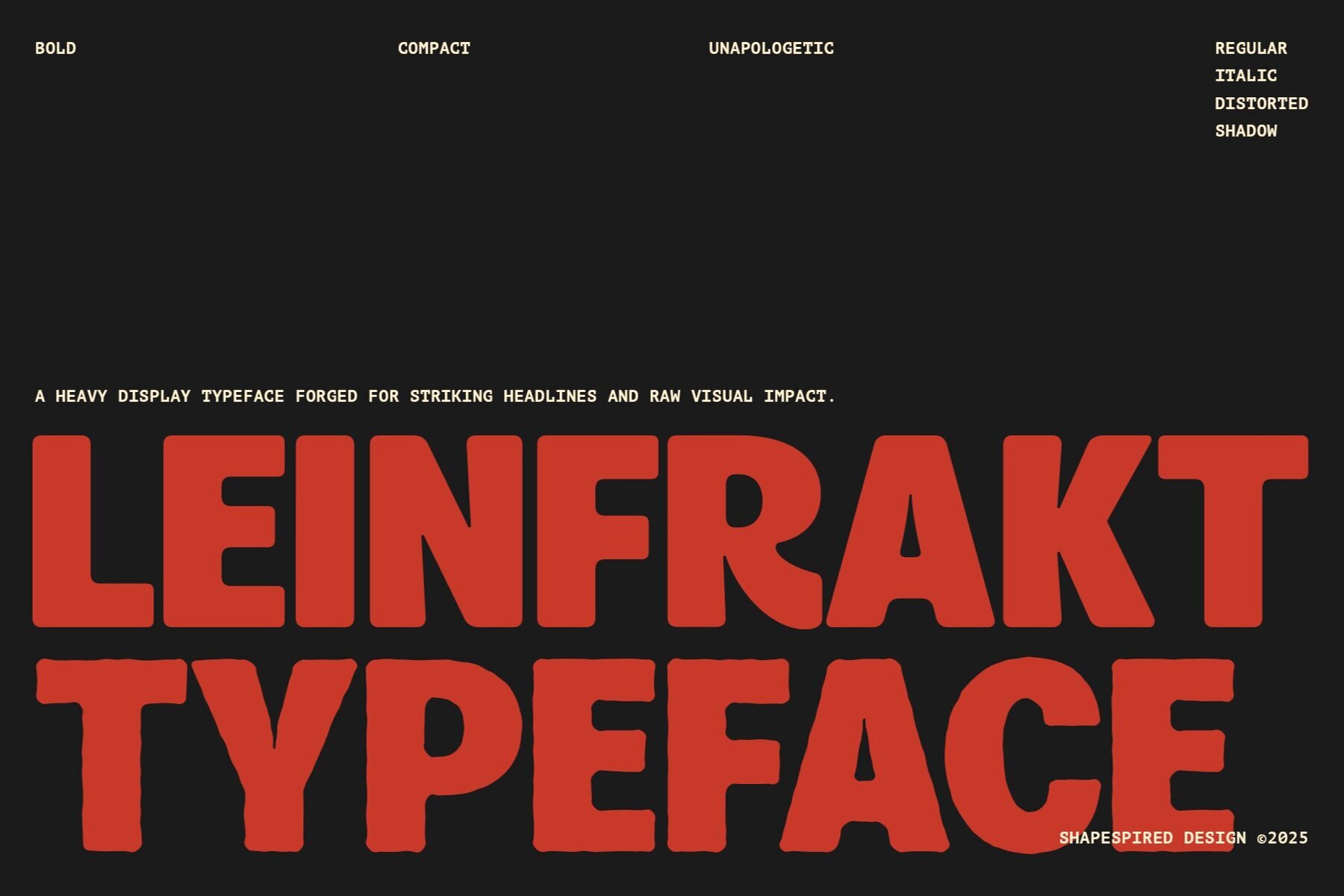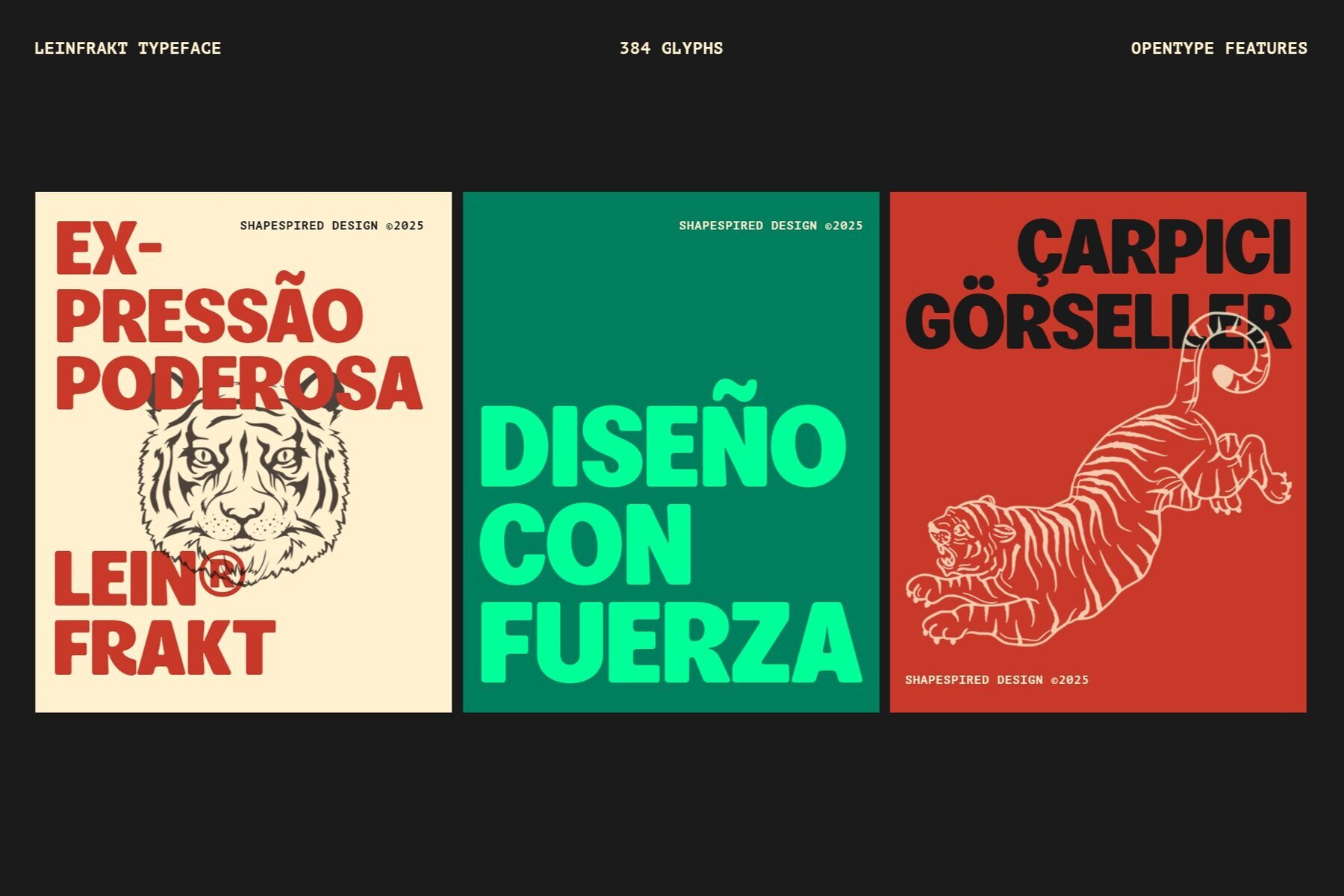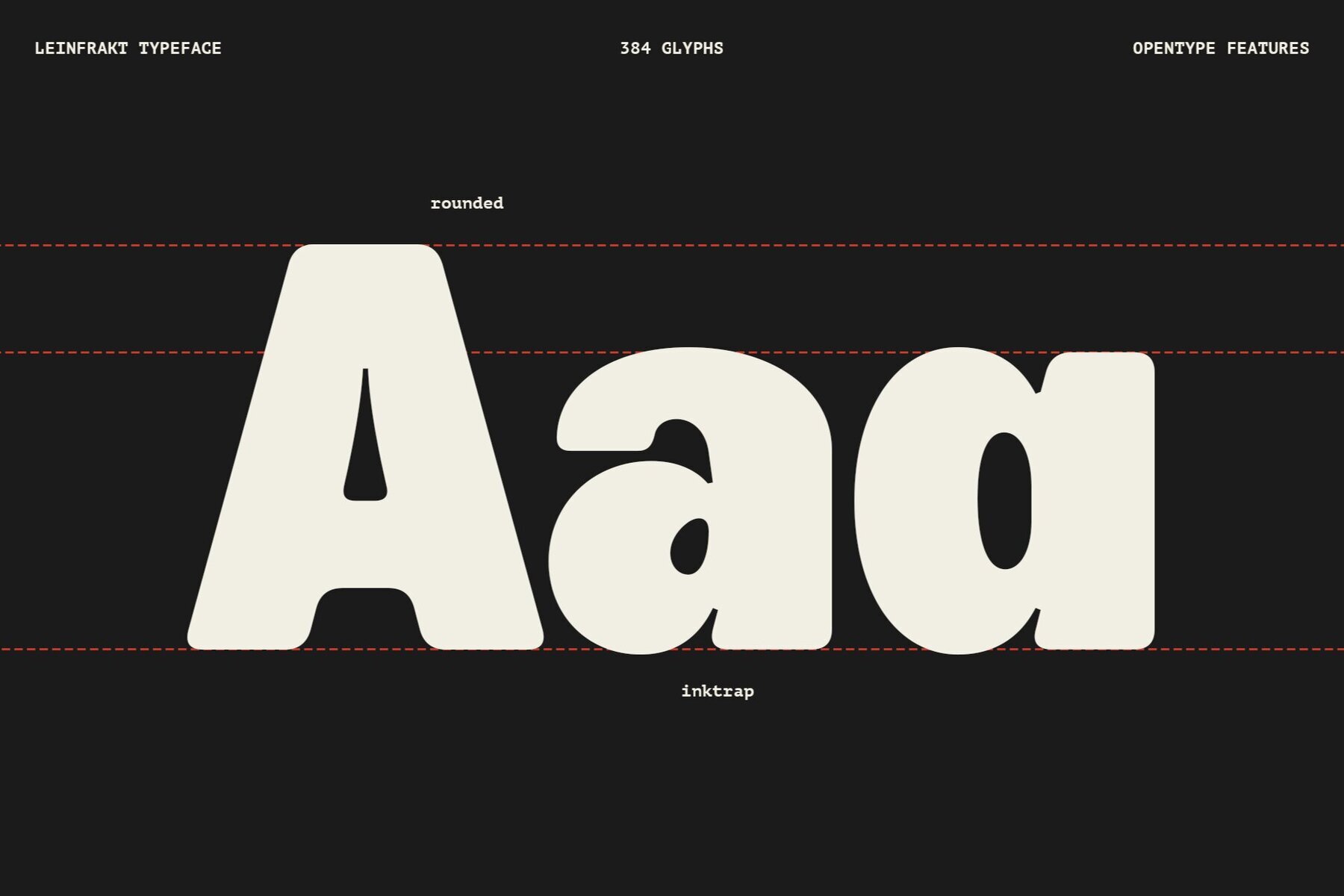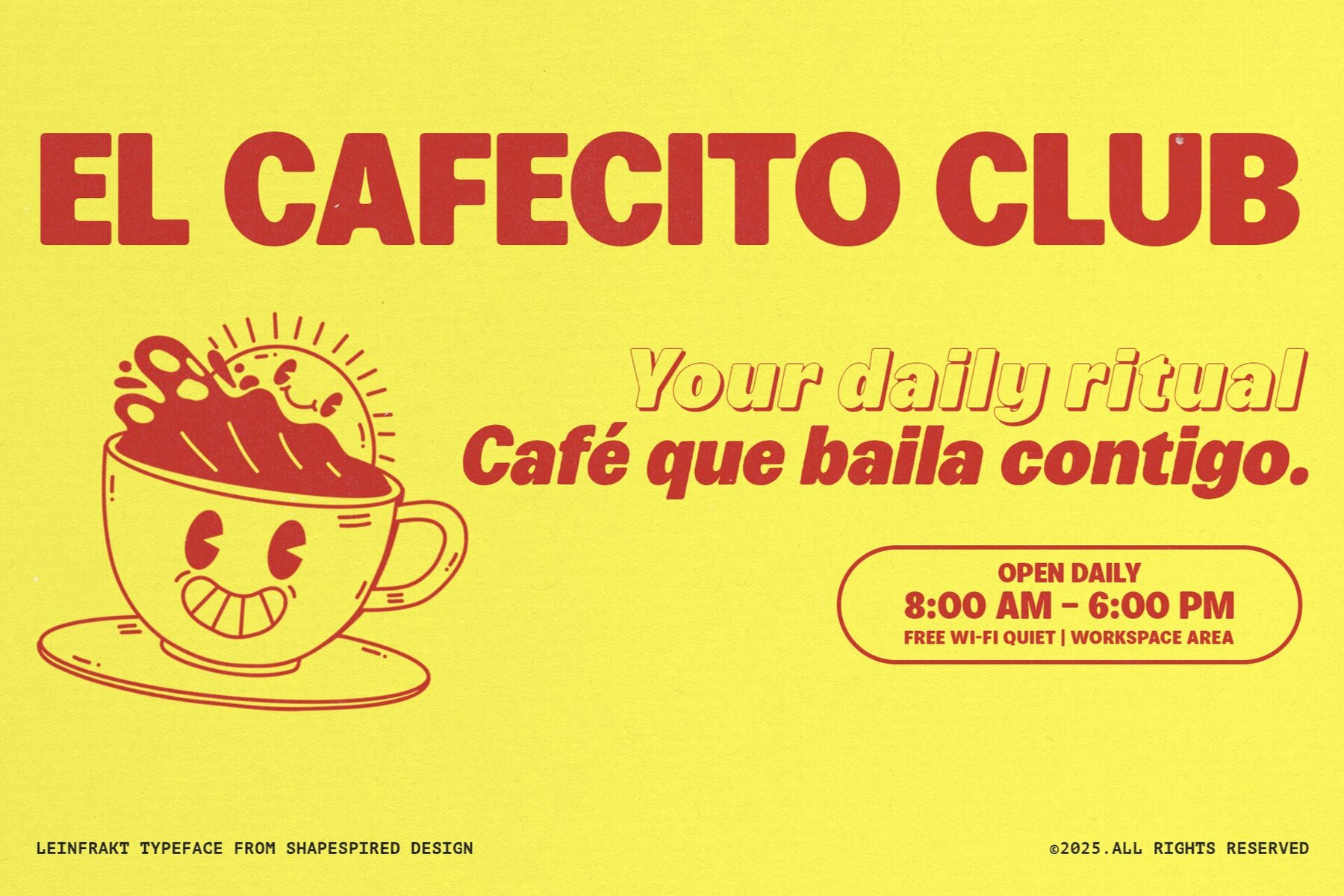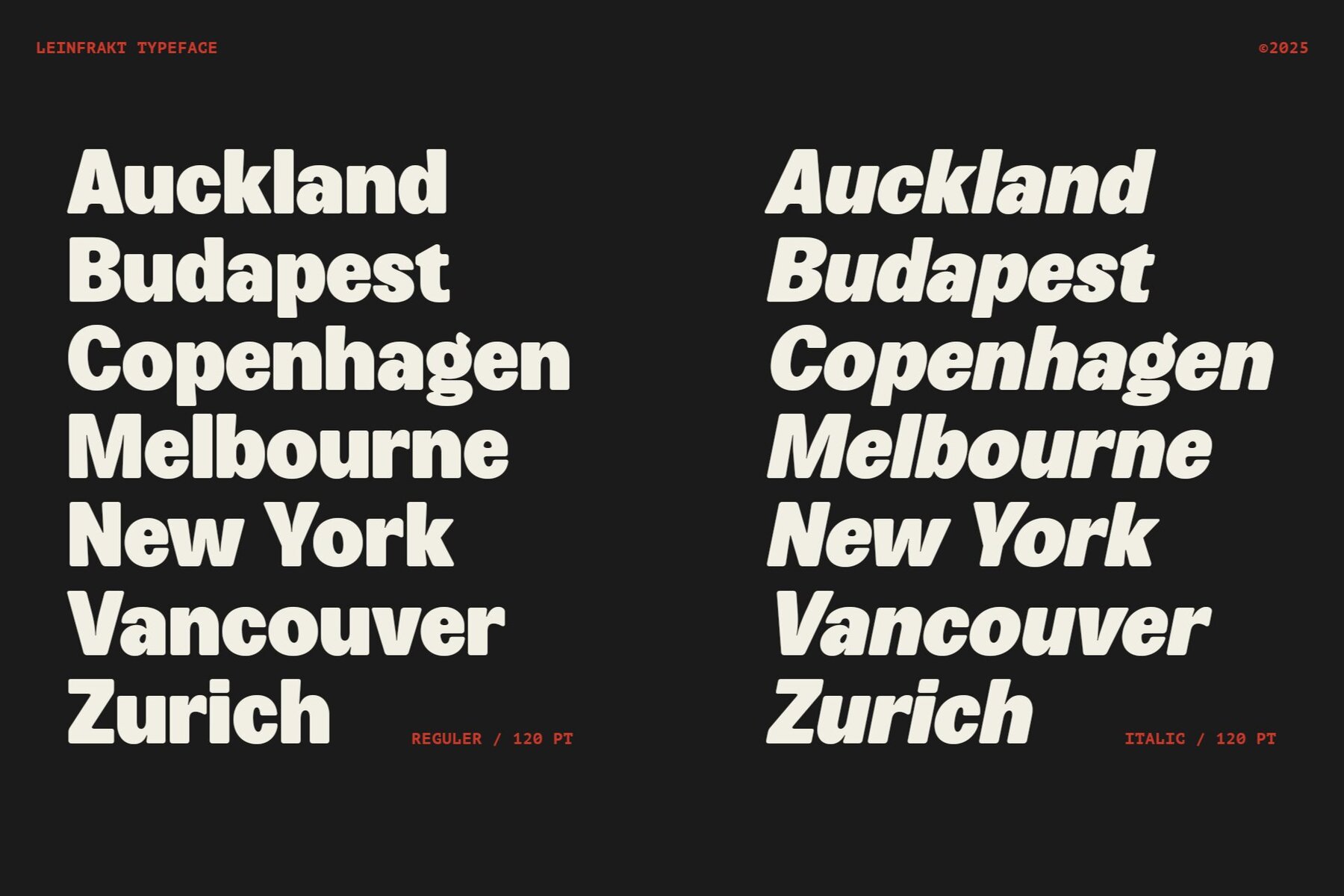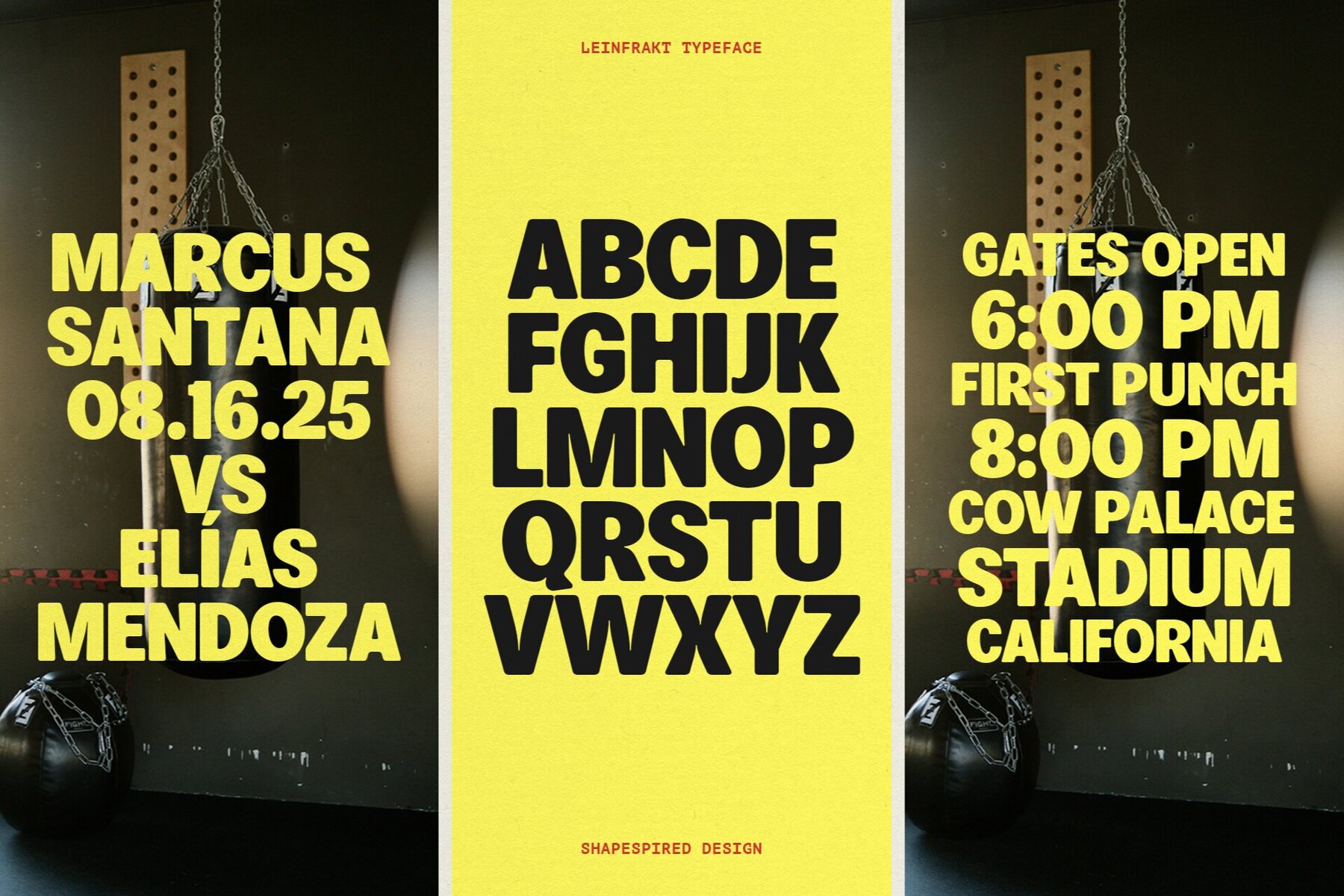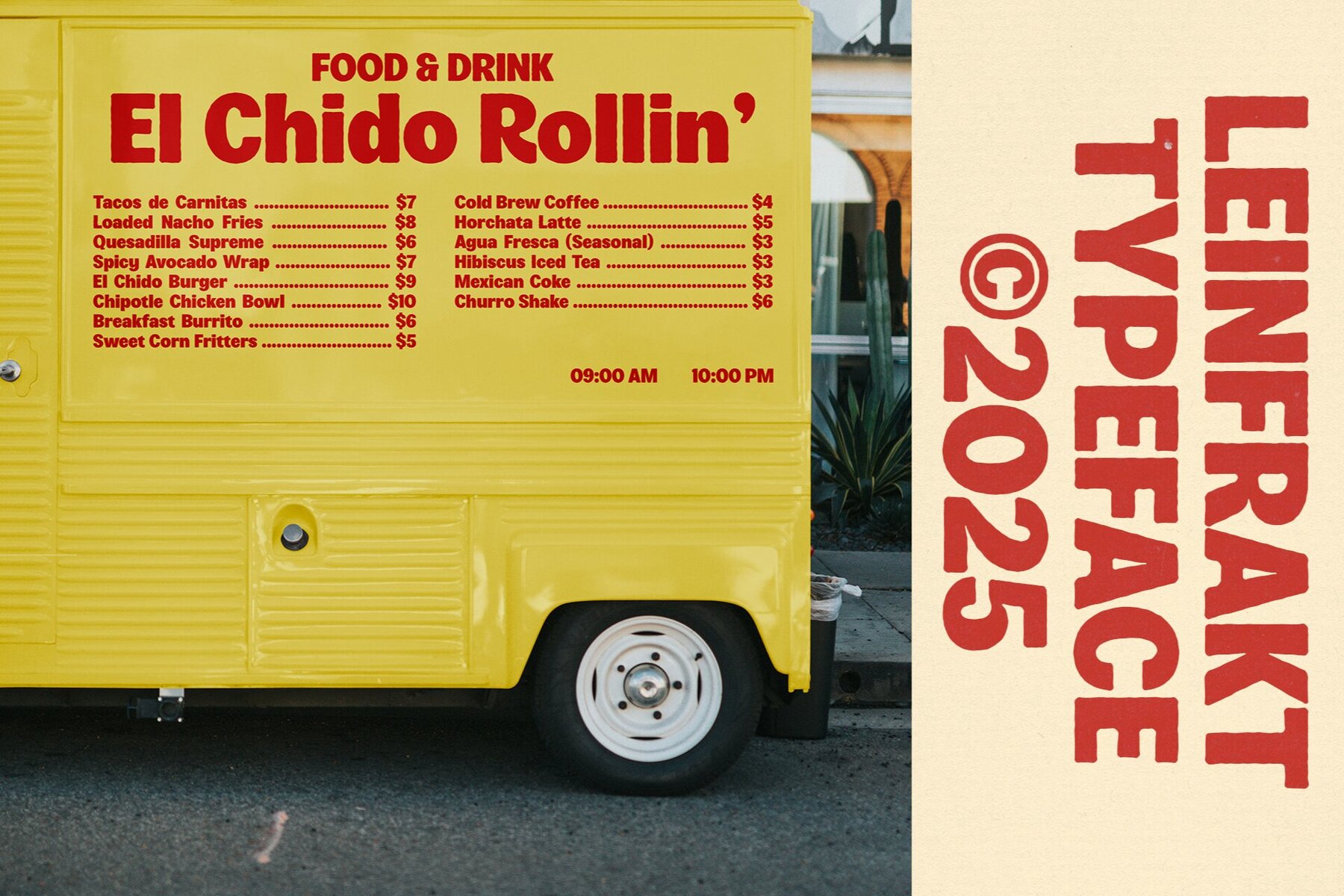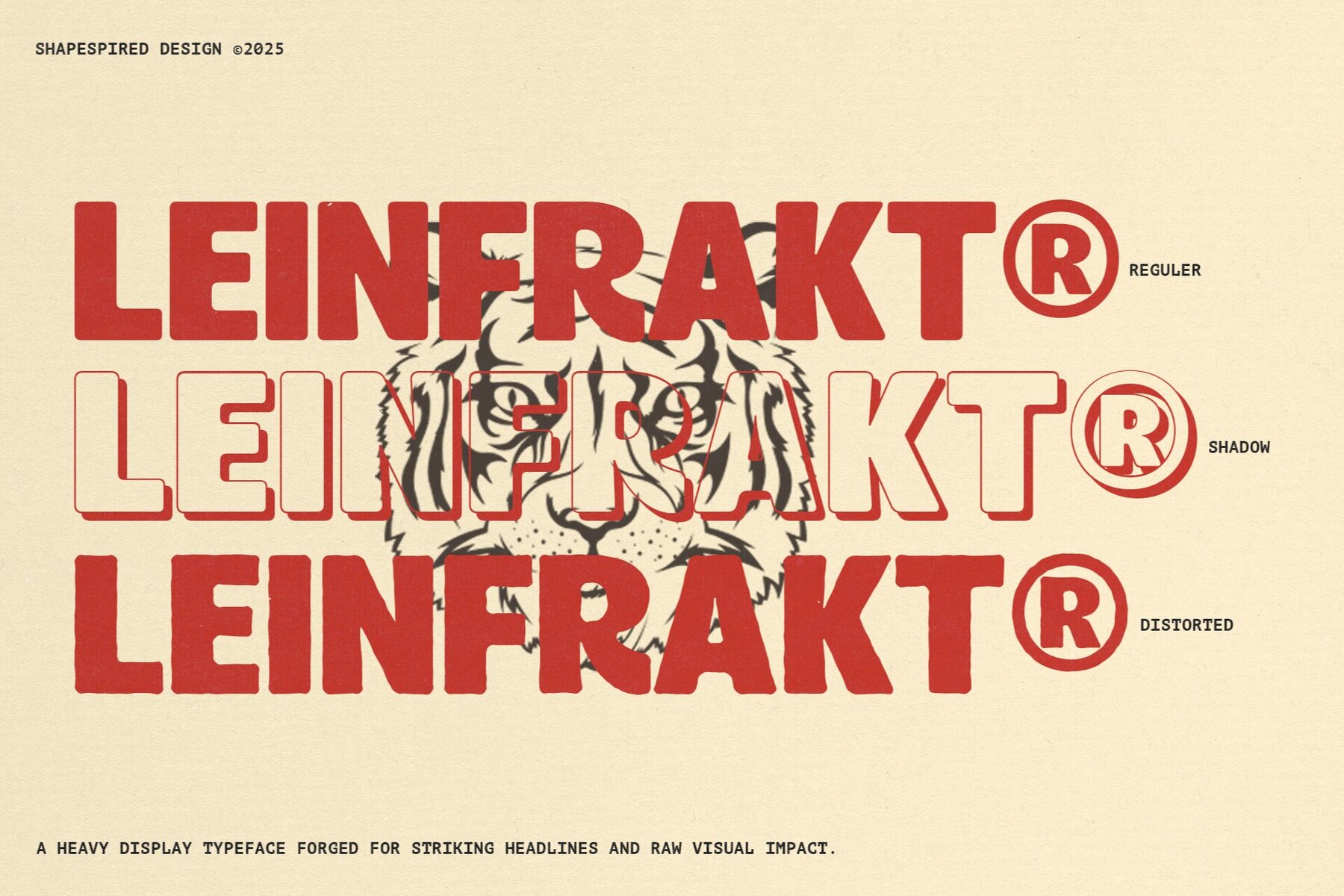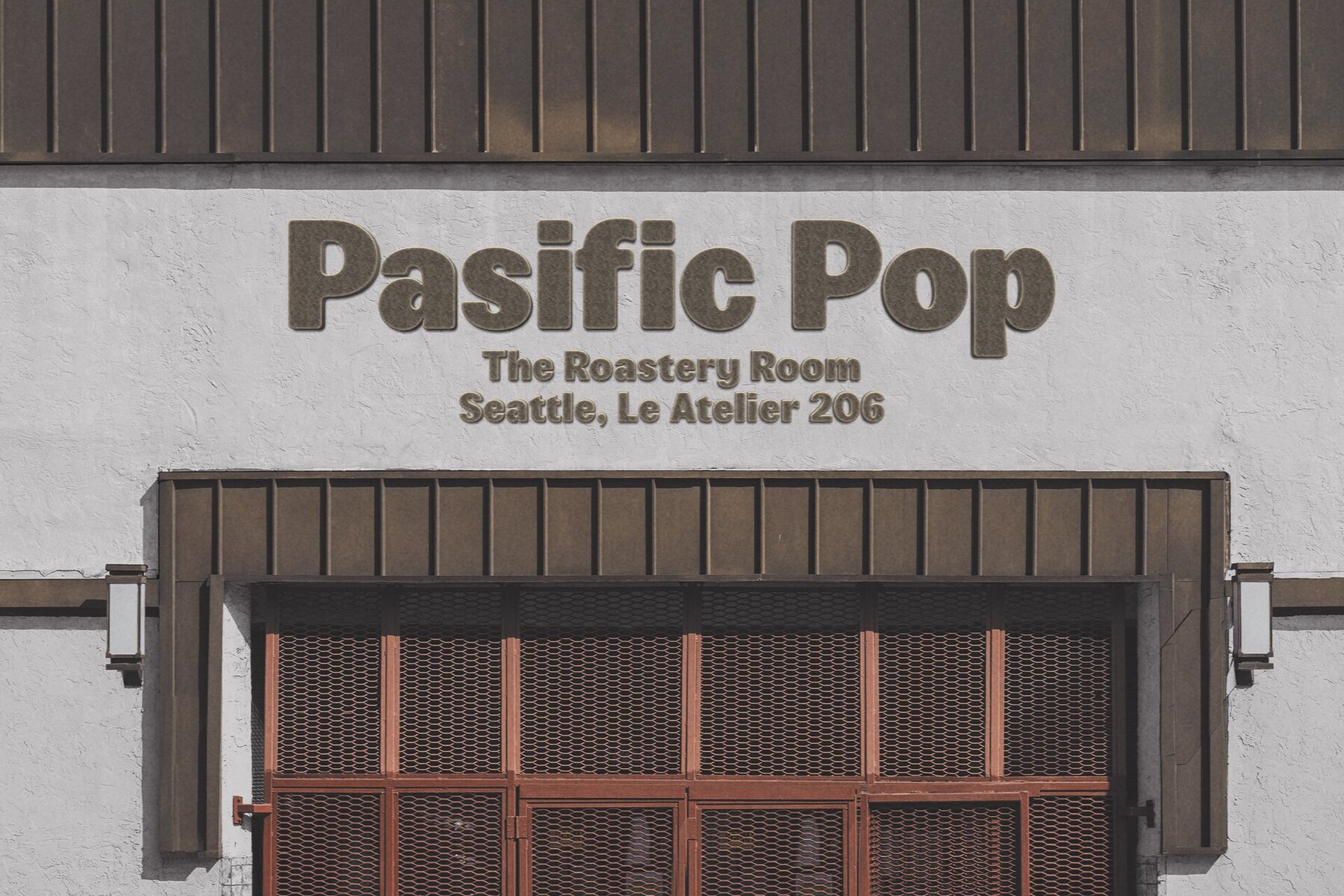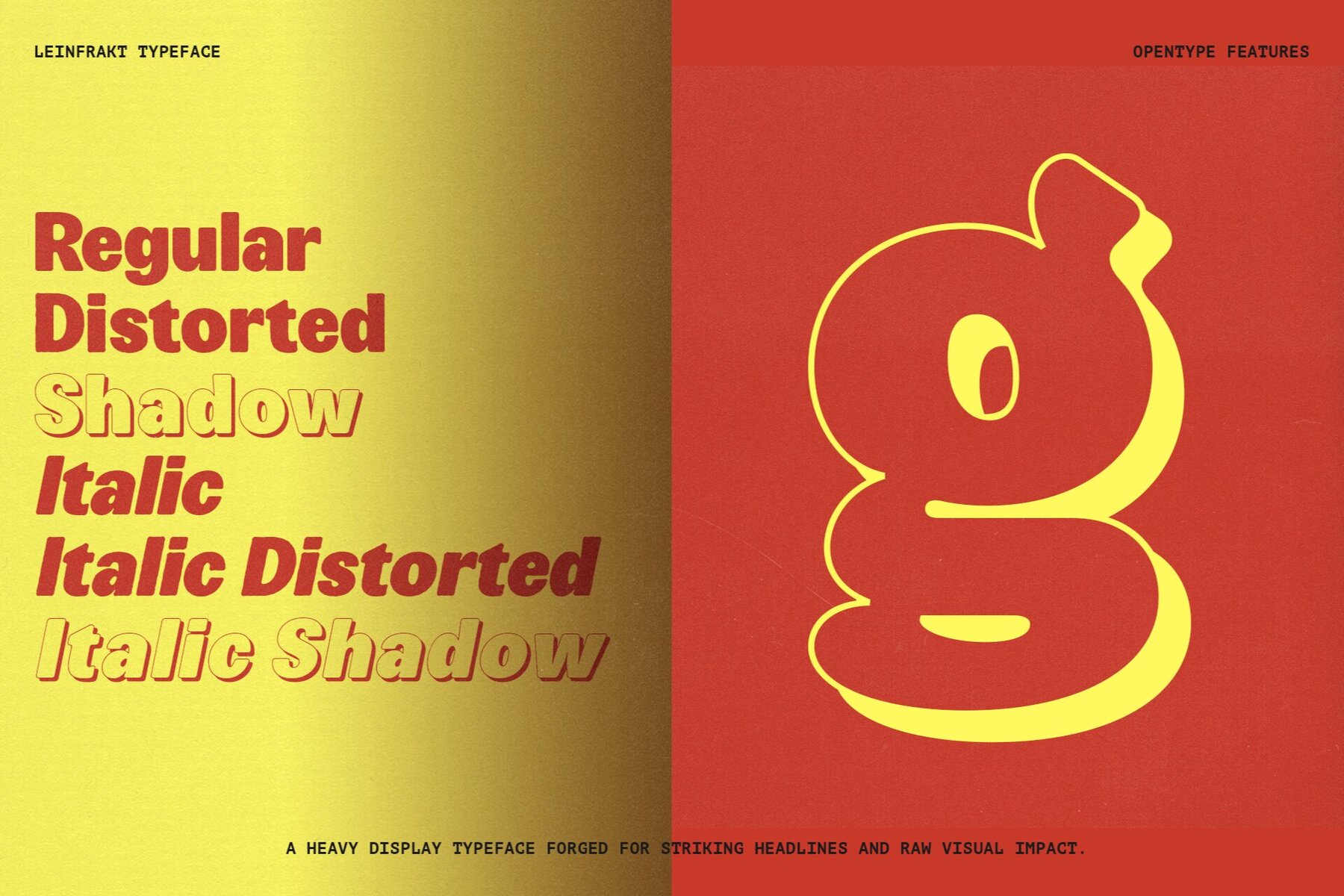
Leinfrakt Font
Leinfrakt is a display typeface conceived for maximum impact. This bold, compact font, with its assertive forms and intense presence, becomes the focal point of any project. It is the ideal choice for those seeking distinctive visuals in poster design, music branding, or experimental graphics. Leinfrakt is designed to dominate. It exudes strength and commands attention, making it perfect for settings where loud and clear communication is essential.Leinfrakt: The Typeface That Commands Attention